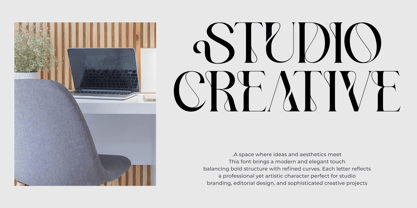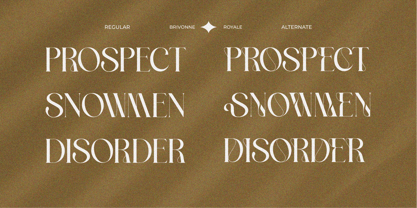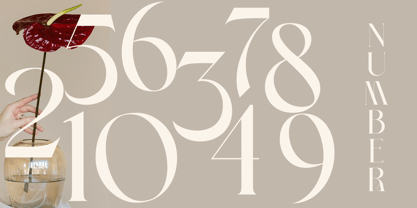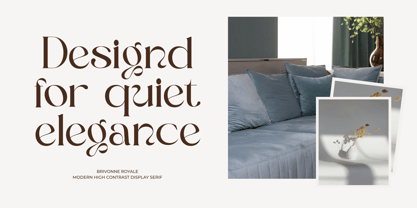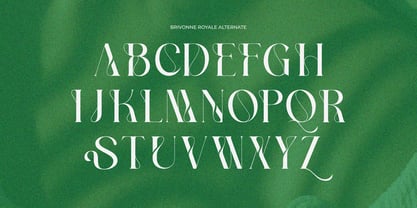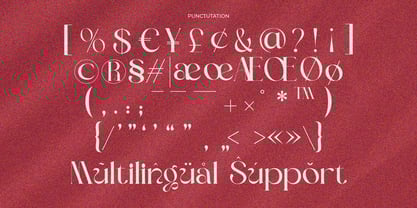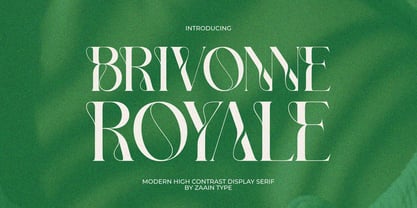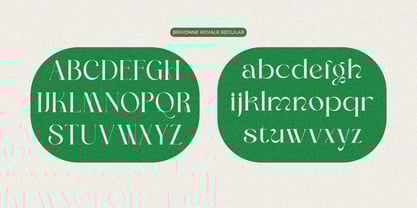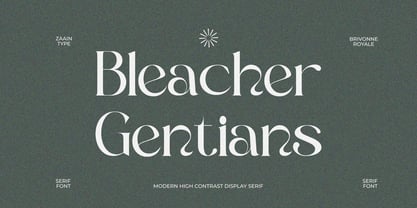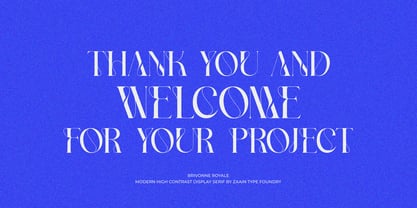
Brivonne Royale
by Zaain Type
The Brivonne Royale Font Family was designed by Ju Naen and published by Zaain Type. Brivonne Royale contains 2 styles and family package options. More about this family
Brivonne Royale is a modern serif font that blends graceful curves with elegant high contrast. Designed to convey luxury and authority, each letterform combines classic aesthetics with a subtle contemporary touch. With refined serif details, balanced proportions, and shapes that feel bold yet sophisticated, Brivonne Royale is perfect for high-end branding, fashion magazines, premium editorials, exclusive product packaging, and headline designs that demand an elevated presence. This font delivers a sense of royal sophistication — strong, refined, and highly recognizable, making it an ideal choice for designers seeking a characterful modern serif.
Designers: Ju Naen
Foundry: Zaain Type